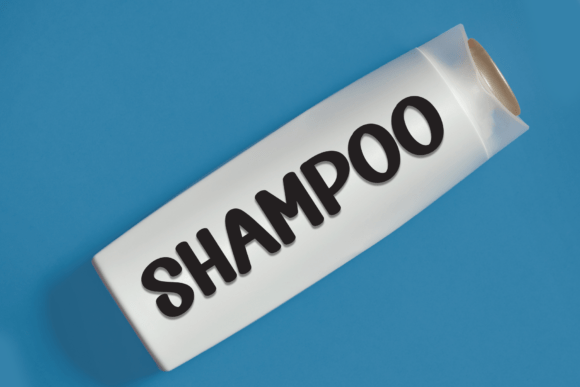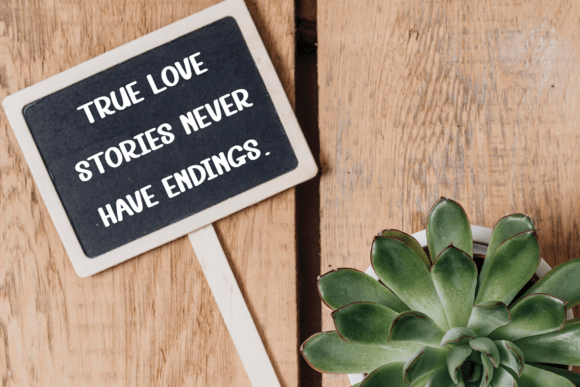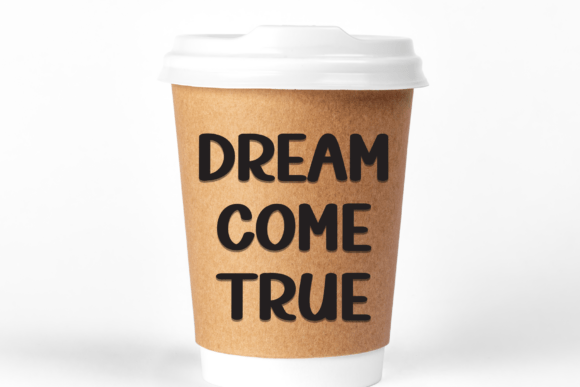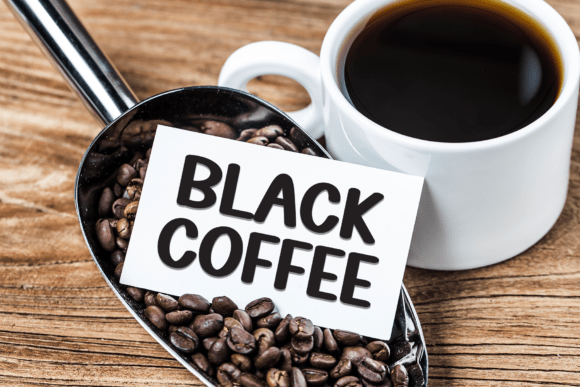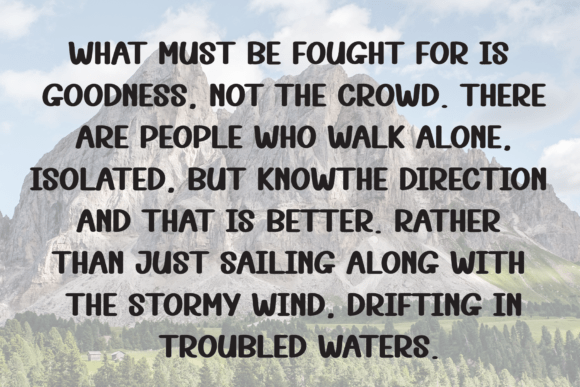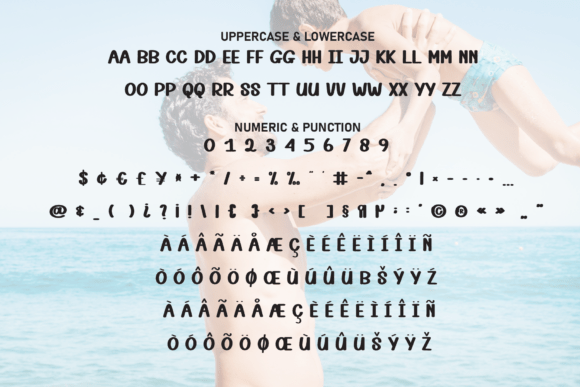
Introducing Father Summer Font: The Perfect Blend of Casual and Neat Display
Are you looking for a font that can bring warmth and clarity to your design projects? Look no further than Father Summer Font. This casual and neat display font is designed to make your branding, headlines, and everyday designs stand out with its clean structure and approachable style.
Clean Structure, Approachable Style
Father Summer Font boasts a balanced letterform that offers readability and charm. Its clean structure makes it easy to read, while its approachable style gives it a friendly and inviting feel. This font is perfect for designers and crafters who want to create a genuine and inviting atmosphere in their designs.
Perfect for Branding, Headlines, and Everyday Designs
Whether you’re working on a branding project, creating headlines for a blog post, or designing everyday materials like flyers or brochures, Father Summer Font is the perfect choice. Its versatility and legibility make it suitable for a wide range of applications, from digital designs to print materials.
What Makes Father Summer Font Stand Out?
- Clean and Neat Design: Father Summer Font features a clean and neat design that makes it easy to read and understand.
- Approachable Style: The font’s approachable style gives it a friendly and inviting feel that’s perfect for creating a genuine atmosphere in your designs.
- Balanced Letterforms: The balanced letterforms in Father Summer Font offer readability and charm, making it perfect for a wide range of design applications.
- Versatility: This font is versatile and can be used for a variety of design projects, from branding and headlines to everyday designs.
How to Use Father Summer Font in Your Designs
Using Father Summer Font in your designs is easy. Here are a few tips to get you started:
- Pair it with Other Fonts: Father Summer Font pairs well with other fonts, making it easy to create a unique and visually appealing design.
- Experiment with Different Sizes: The font’s clean structure and approachable style make it suitable for use at different sizes, from large headlines to smaller body text.
- Use it for Branding: Father Summer Font is perfect for branding projects, such as logos, business cards, and letterheads.
Why Designers and Crafters Love Father Summer Font
Designers and crafters love Father Summer Font for its unique blend of casual and neat design. Here are a few reasons why:
- Easy to Read: The font’s clean structure and balanced letterforms make it easy to read, even at smaller sizes.
- Versatile: Father Summer Font is versatile and can be used for a wide range of design applications.
- Genuine and Inviting: The font’s approachable style gives it a genuine and inviting feel that’s perfect for creating a friendly atmosphere in designs.
In conclusion, Father Summer Font is a casual and neat display font that’s perfect for designers and crafters who want to bring warmth and clarity to their projects. Its clean structure, approachable style, and balanced letterforms make it suitable for a wide range of design applications, from branding and headlines to everyday designs. Try Father Summer Font today and see how it can elevate your designs to the next level.